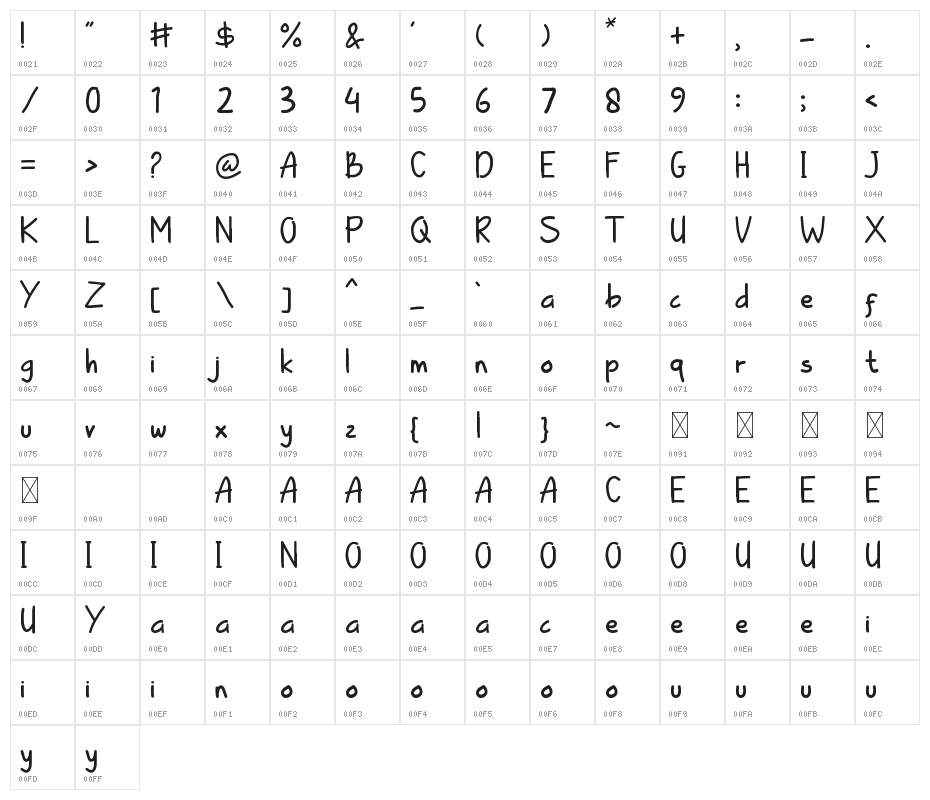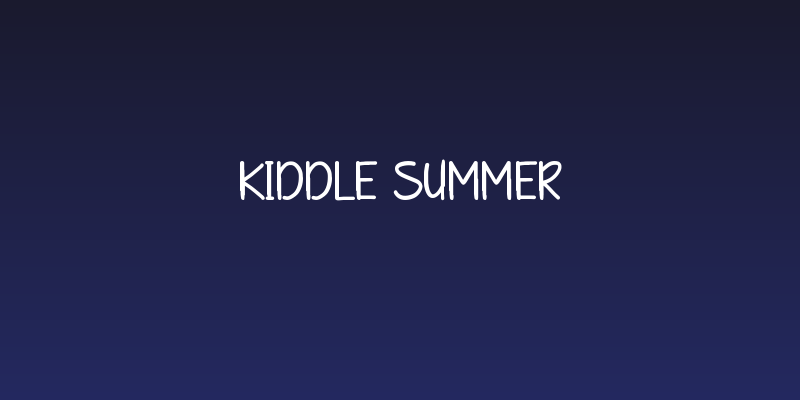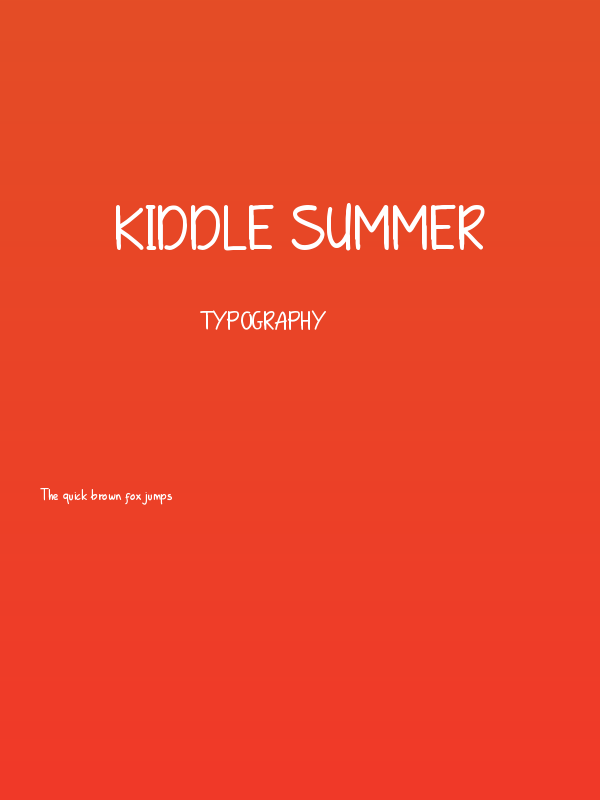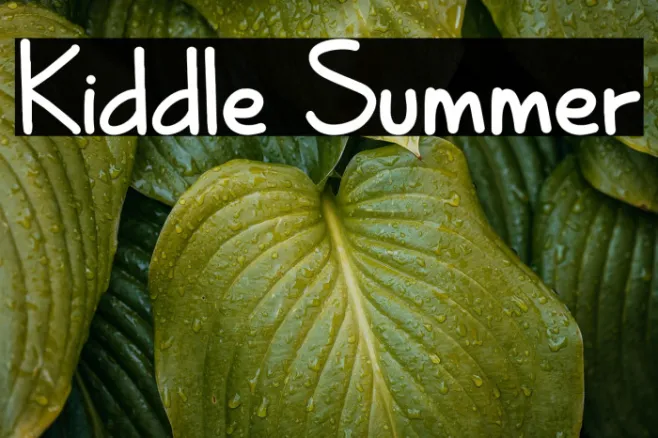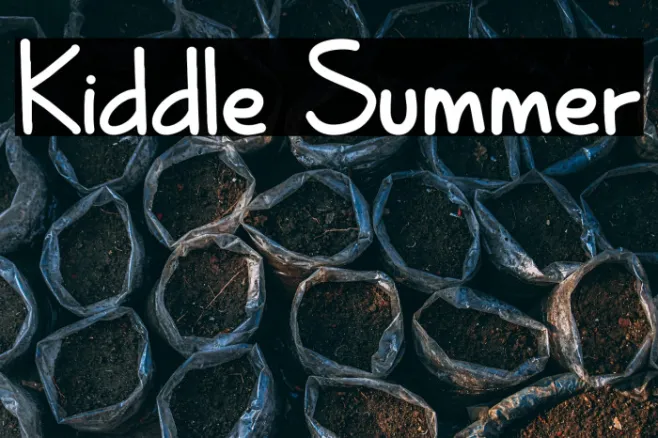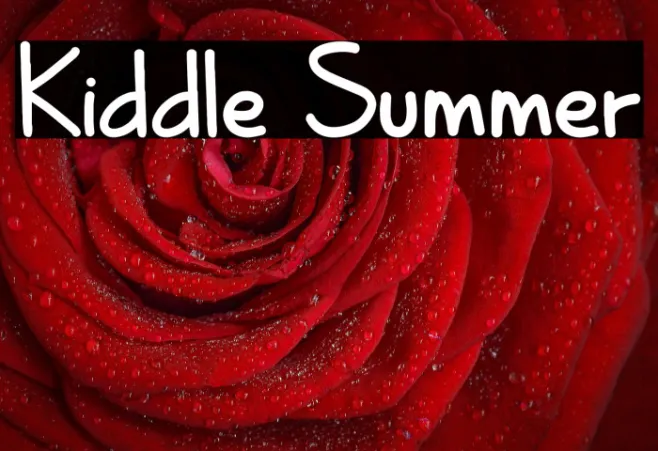
Kiddle Summer Font
Kiddle Summer Description
This playful and informal font features a handwritten style that exudes a sense of fun and creativity. The characters are slightly irregular, giving it a personal and approachable feel. The uppercase letters are bold and prominent, while the lowercase letters maintain a consistent flow with rounded edges. The numerals are clear and easy to read, complementing the overall casual aesthetic. Special characters are included, maintaining the same playful style. This font is perfect for projects that require a touch of whimsy and personality.
KIDDLE-SUMMER UPPERCASE
KIDDLE-SUMMER LOWERCASE
KIDDLE-SUMMER OTHER CHARS
| Use Case | Logos, Posters, Invitations |
| Proposed Projects | Ideal for children's books, playful branding, casual invitations, and creative posters. |